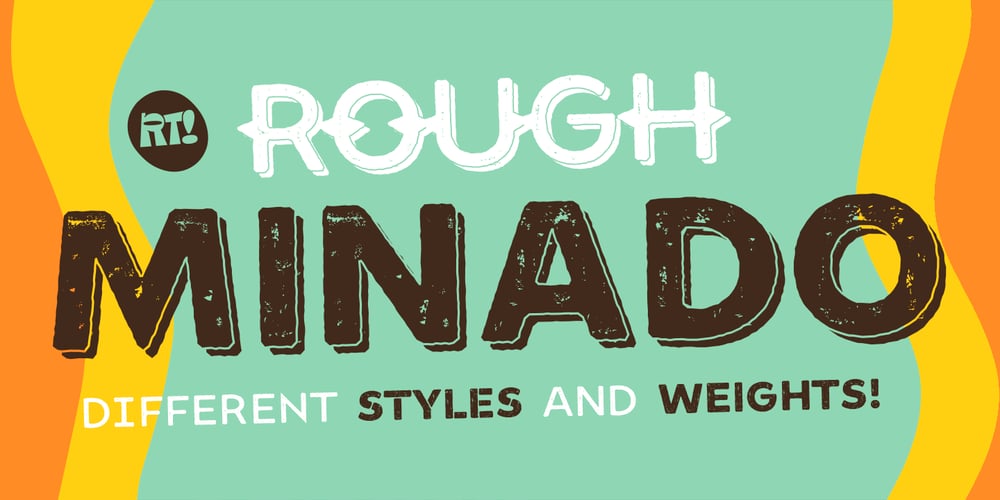
Minado Rough Font Family was designed by Rodrigo Araya Salas and published by RodrigoTypo. Minado Rough contains 16 styles and family package options. Minado Rough is a display sans, stencil and dingbat font family. This typeface has sixteen styles and was published by Rodrigo Typo.